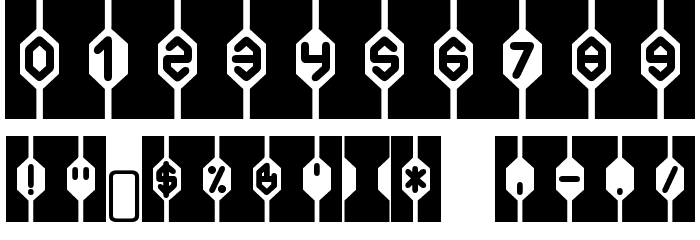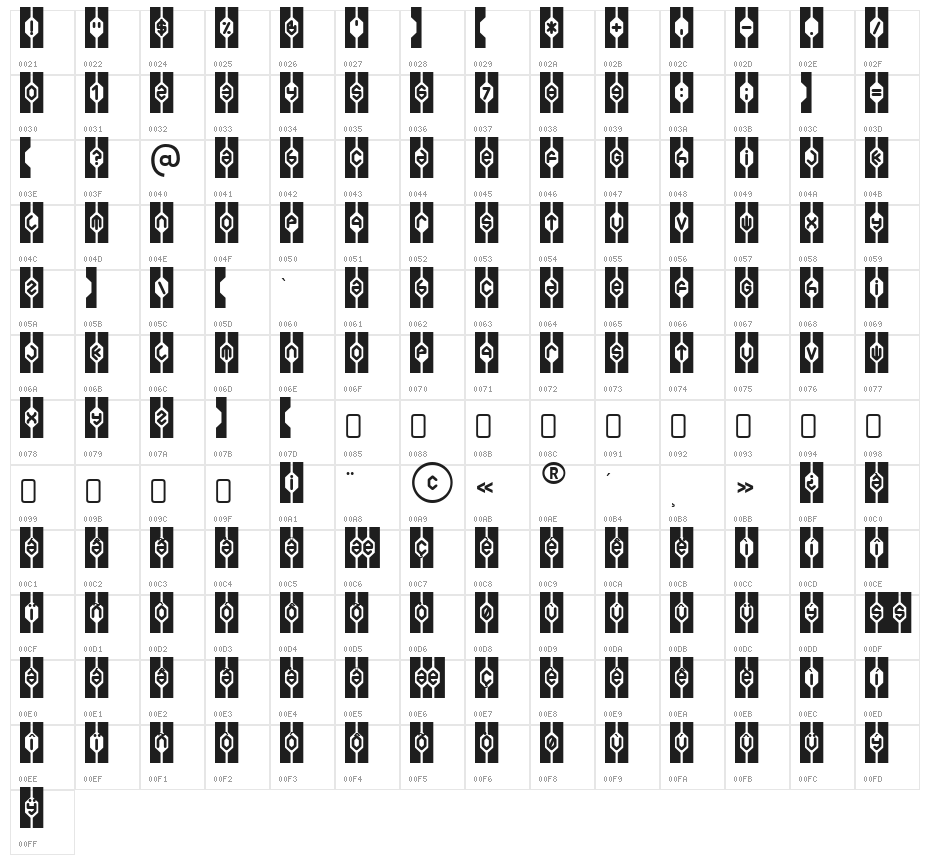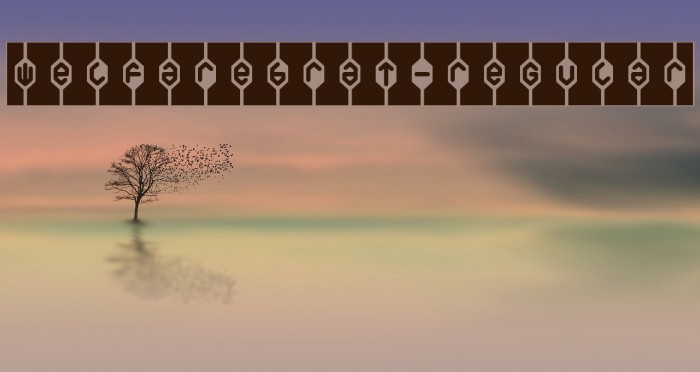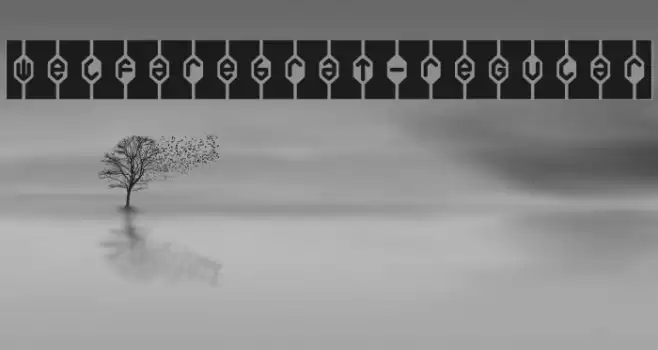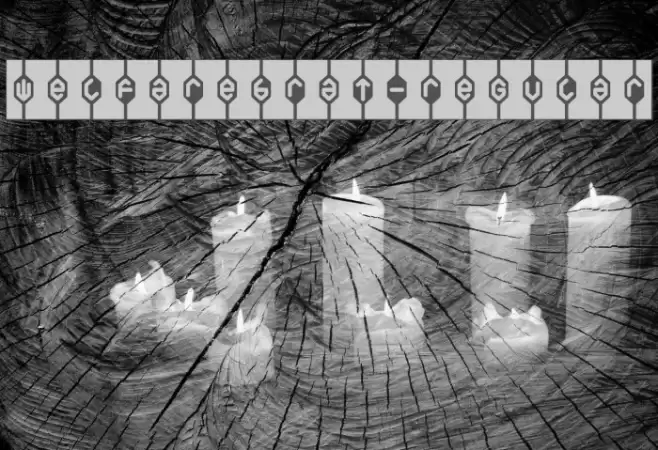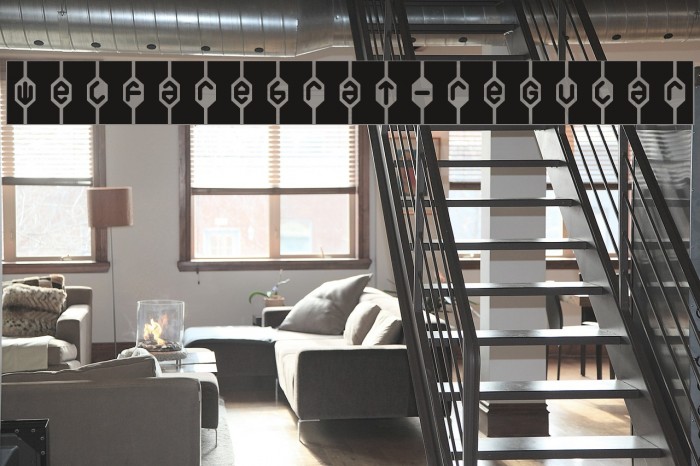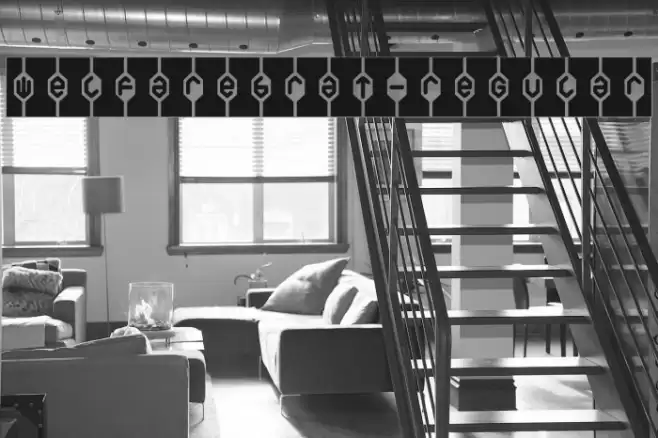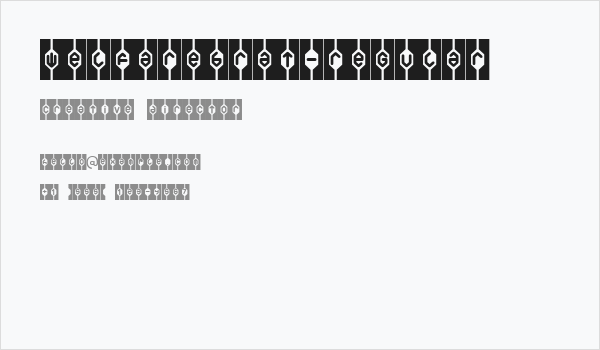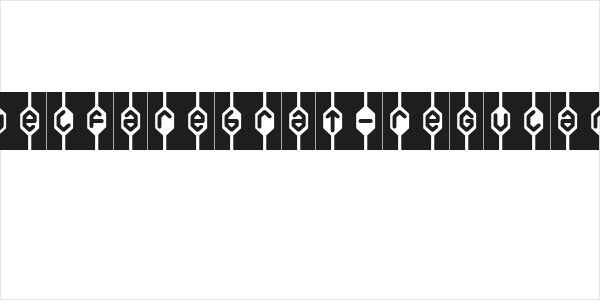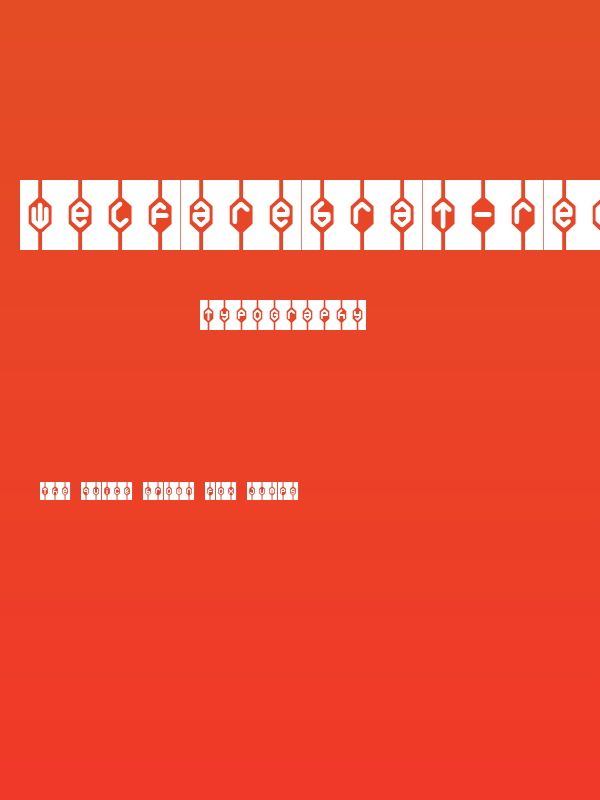
WelfareBrat-Regular Font
WelfareBrat-Regular Description
This font features a unique, geometric design with a futuristic and digital aesthetic. Each character is enclosed within a hexagonal shape, creating a distinct and cohesive look. The letters and numbers are bold and angular, with a consistent stroke width that gives the font a uniform appearance. The special characters maintain the same geometric style, ensuring visual harmony across all elements. This font's design is striking and modern, making it ideal for projects that require a strong visual impact.
| Overall Style | Futuristic, Digital |
| Proposed Projects | Ideal for digital art, tech branding, video game interfaces, and sci-fi themed projects. |